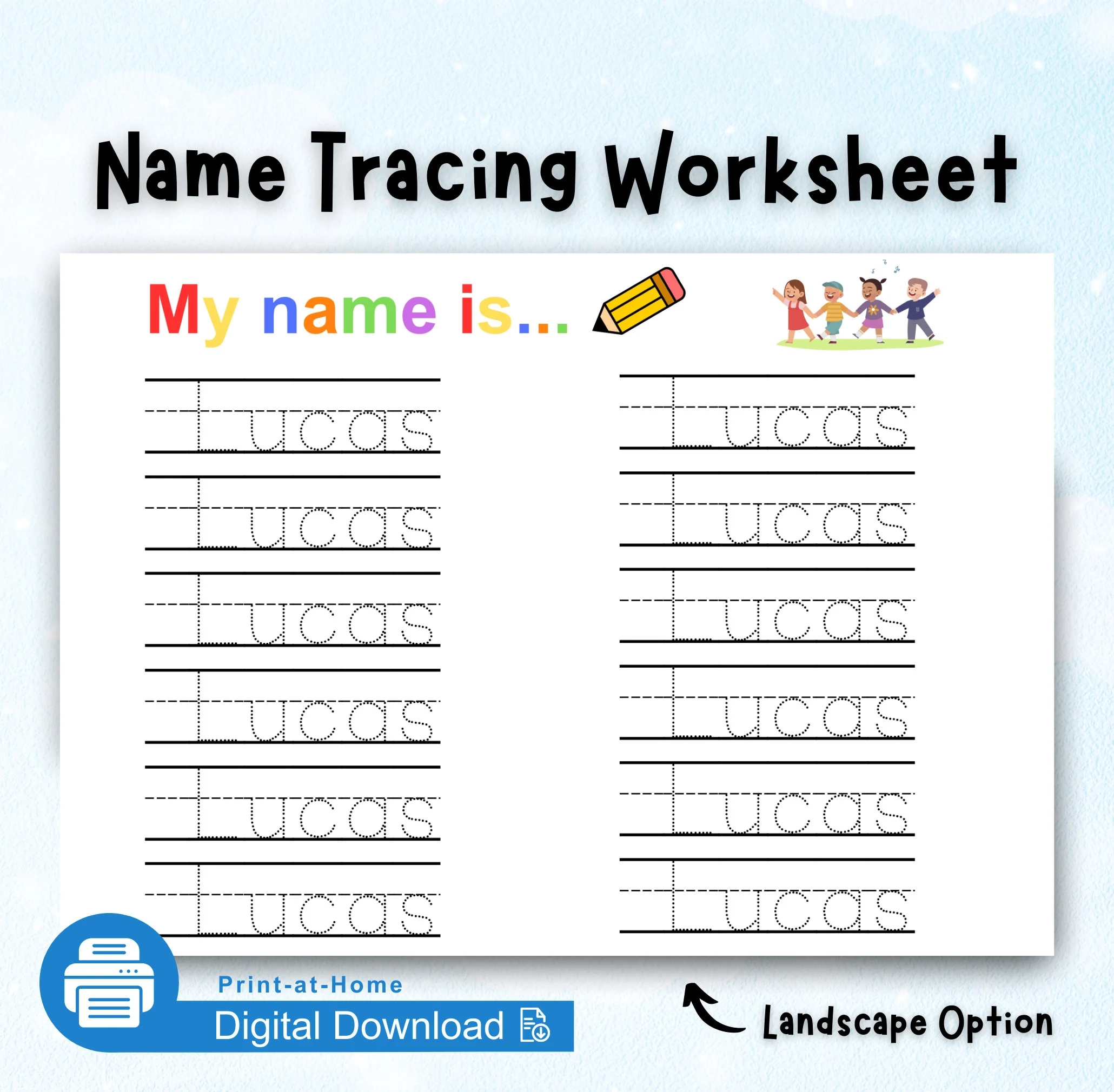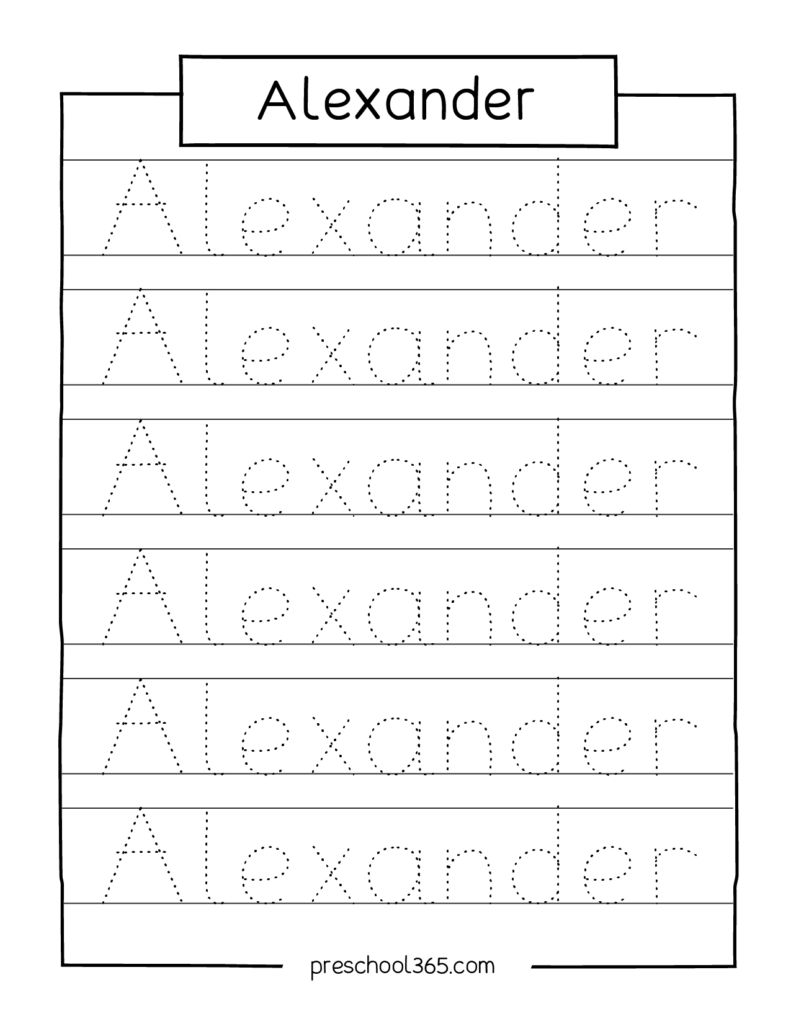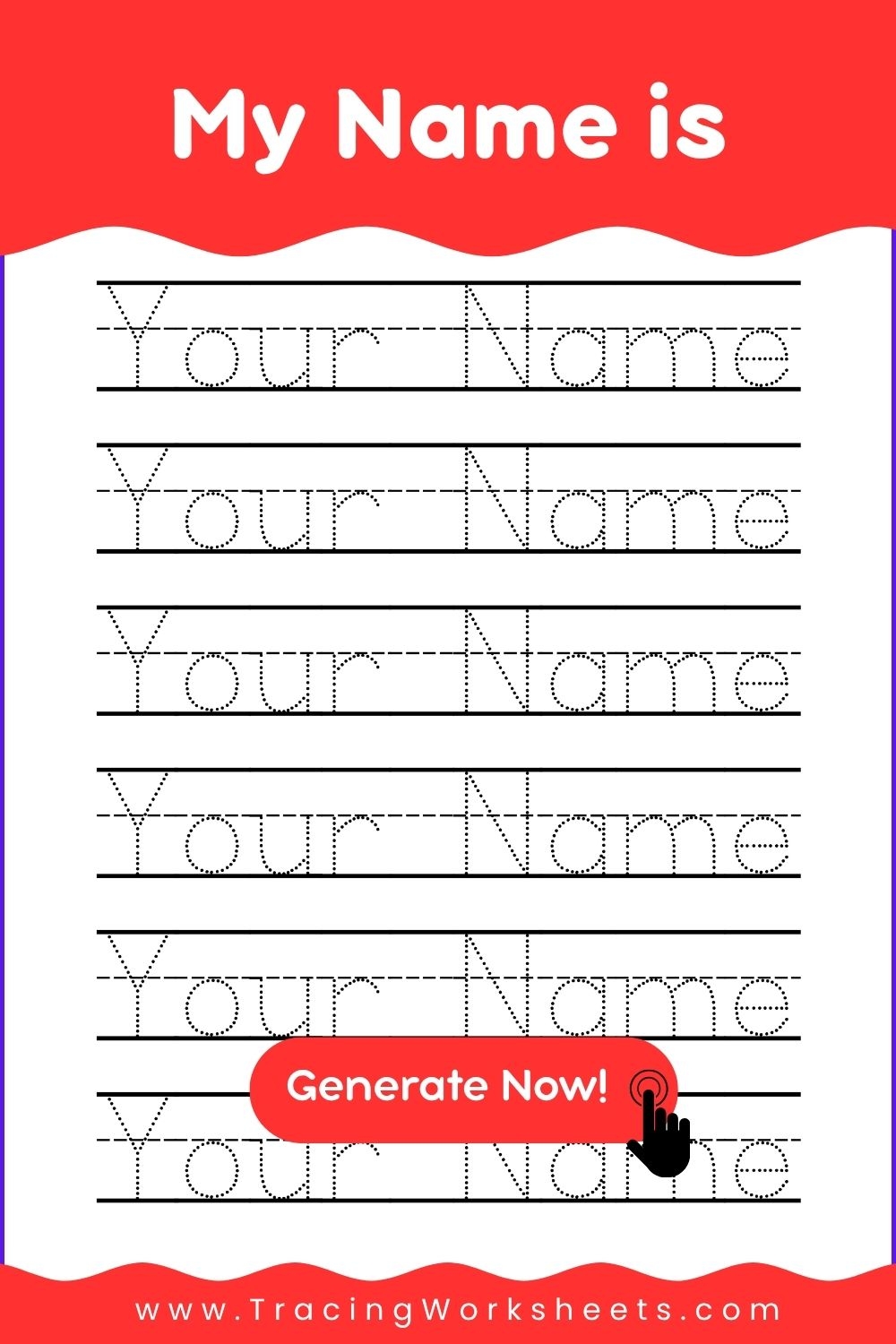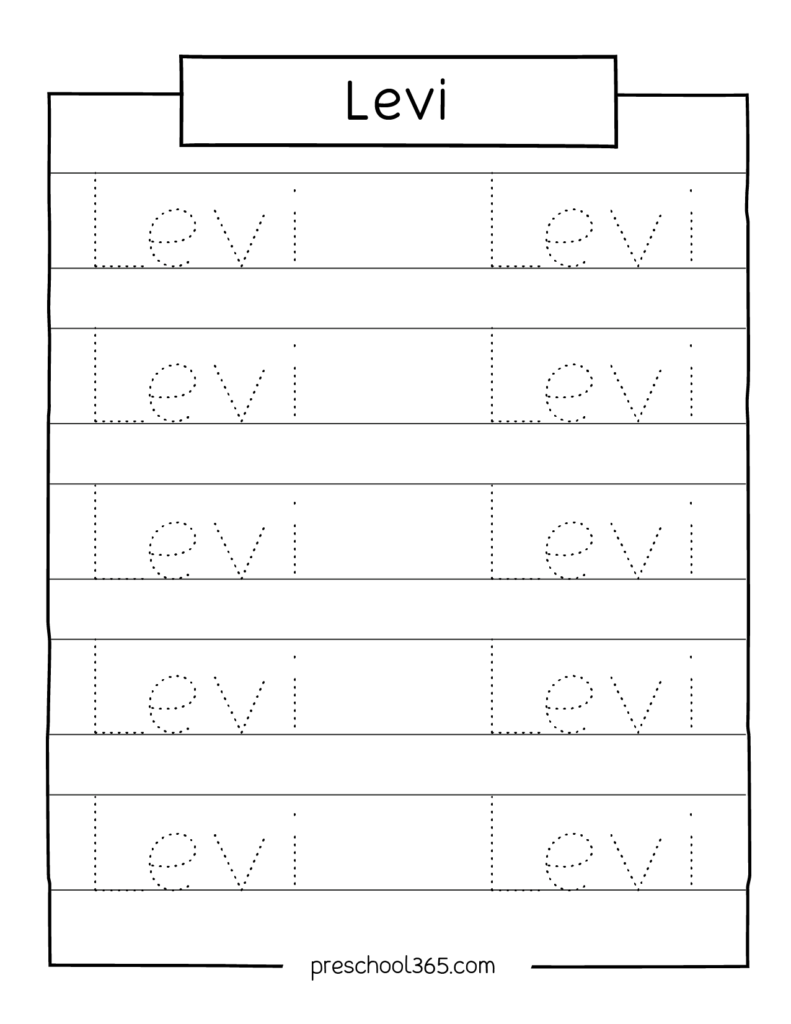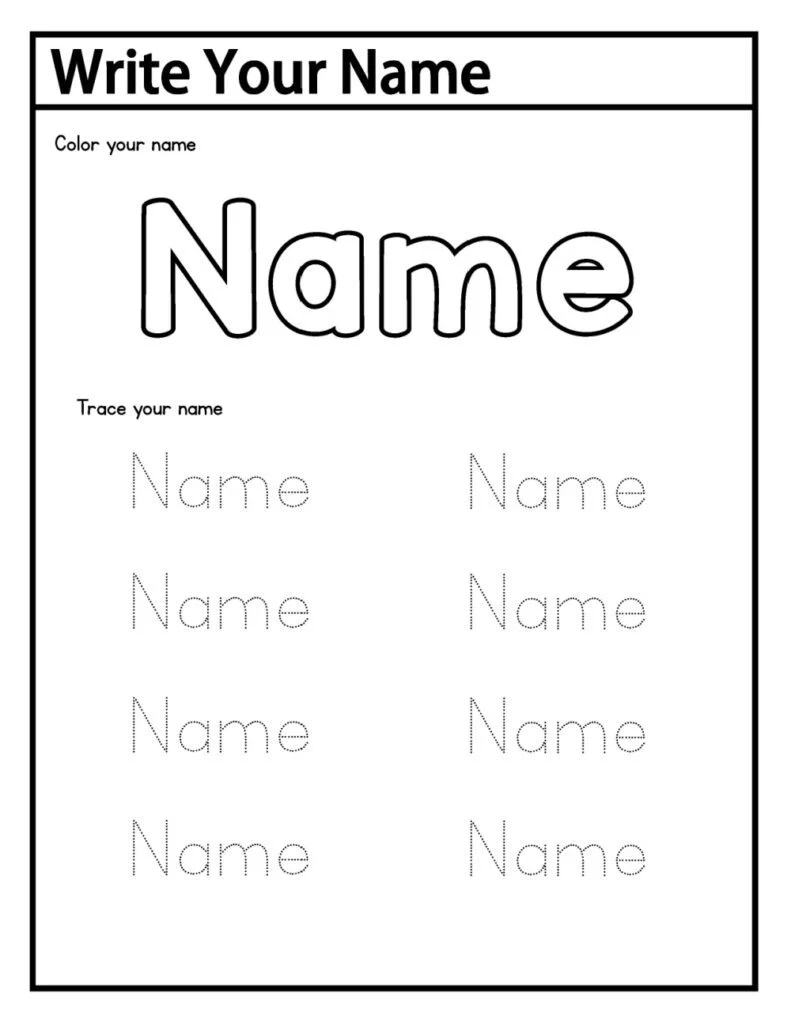
Finding the perfect font can elevate your design projects, making them stand out. One popular choice among designers is the name tracing font, which adds a playful touch to various creative works.
Many websites offer a variety of name tracing fonts for free download. These fonts are designed specifically for tracing, making them ideal for children learning to write or for crafting unique designs.
When searching for a name tracing font, consider the style that best fits your project. Some fonts are more whimsical, while others maintain a classic look. Choose one that resonates with your audience and purpose.
Incorporating a name tracing font into your projects can make them more engaging and fun. With so many options available for free download, you can experiment with different styles and find the perfect fit for your needs.
Exploring name tracing fonts can lead to exciting creative possibilities. With just a few clicks, you can enhance your designs and make learning enjoyable for everyone involved.